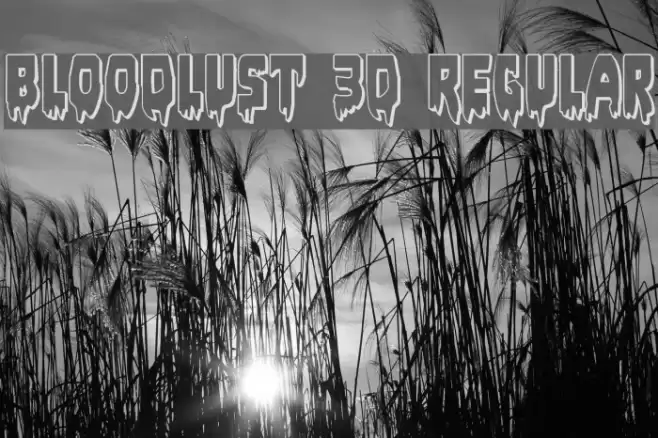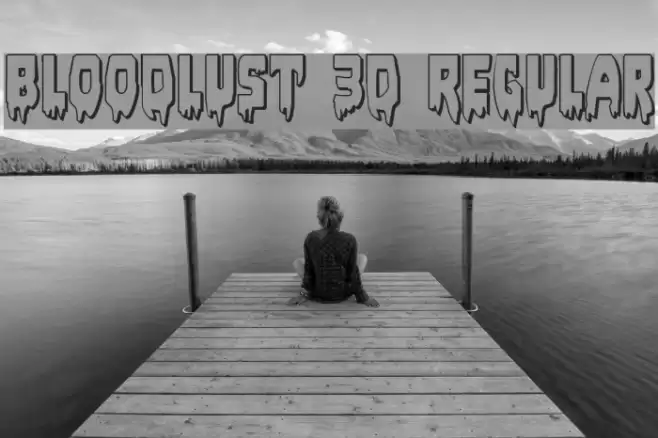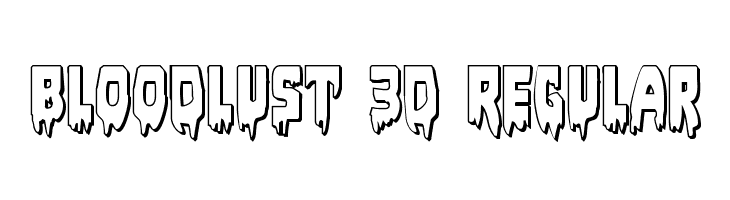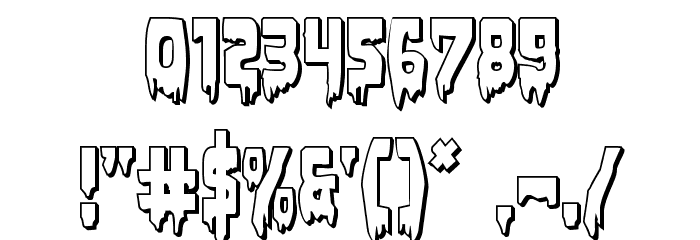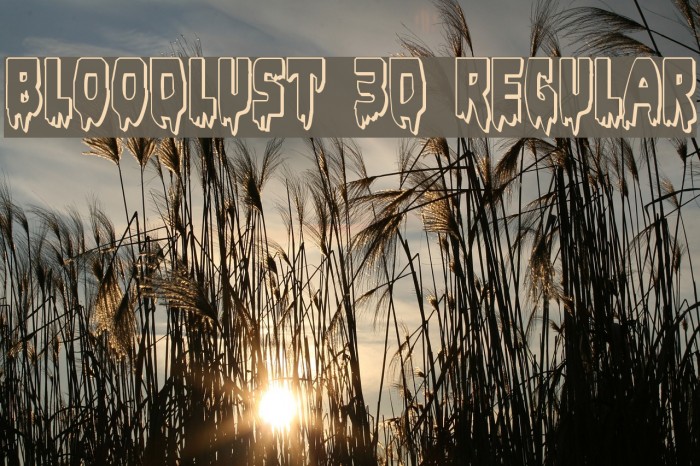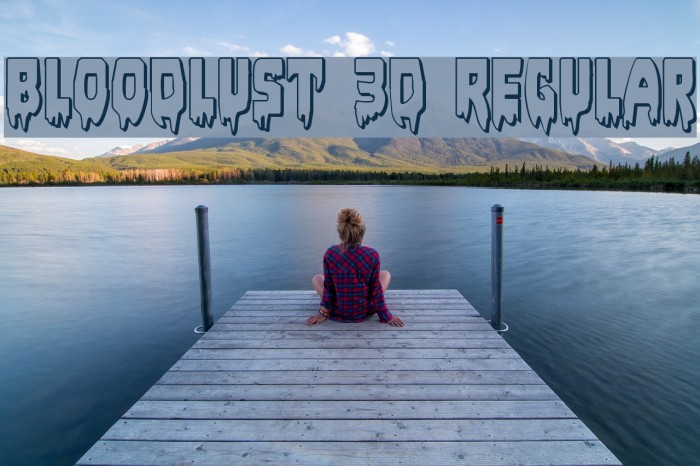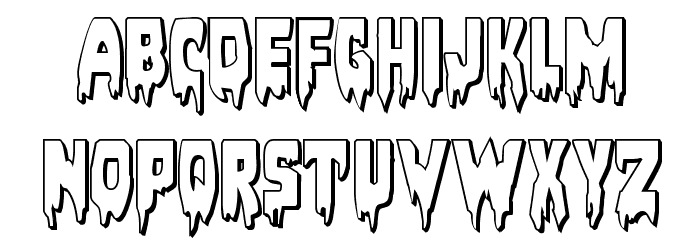
Bloodlust 3D Regular Font
Bloodlust 3D Regular Description
This font features a bold and dramatic style with a dripping effect that gives it a horror-themed appearance. The characters are designed with sharp edges and a 3D look, creating a sense of depth and movement. The uppercase and lowercase letters maintain a consistent style, with the numbers and special characters following the same thematic design. The font is perfect for creating a spooky or eerie atmosphere, making it ideal for Halloween-themed projects or horror movie posters.
A bold, horror-themed font with a dripping, 3D effect from Uncategorized fonts.
- Proposed Projects: Ideal for Halloween posters, horror movie titles, haunted house flyers, and spooky event invitations.